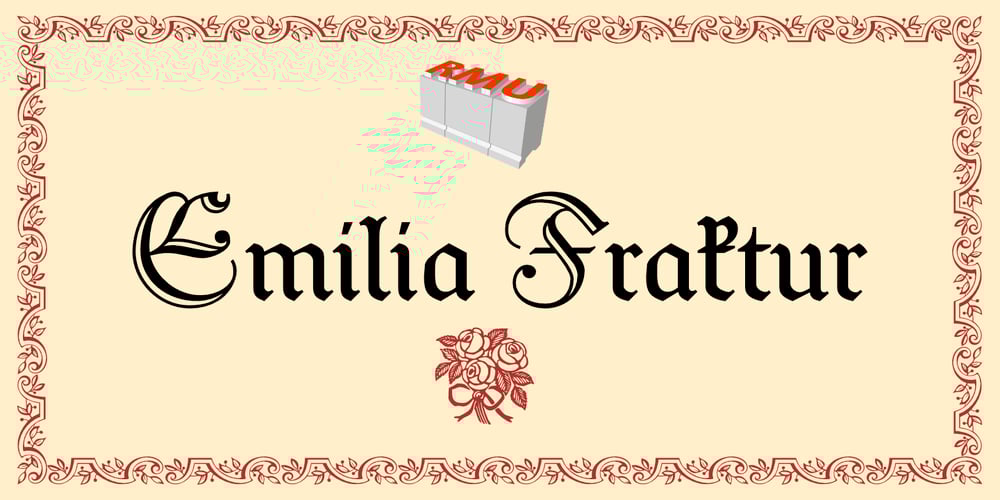
Emilia Fraktur Font Family was designed by Emil Rudolf Weiß, Ralph M. Unger and published by RMU. Emilia Fraktur contains 1 styles and family package options. Based upon Emil Rudolf Weiss’ Fraktur, first released in 1913, Emilia Fraktur was redrawn and extended not only with its engraved initial caps but also with various ornaments and border elements.To get access to all ligatures, it is recommended to activate both Standard and Discretionary Ligatures.The quickest way to the long s is by typing the integral sign.